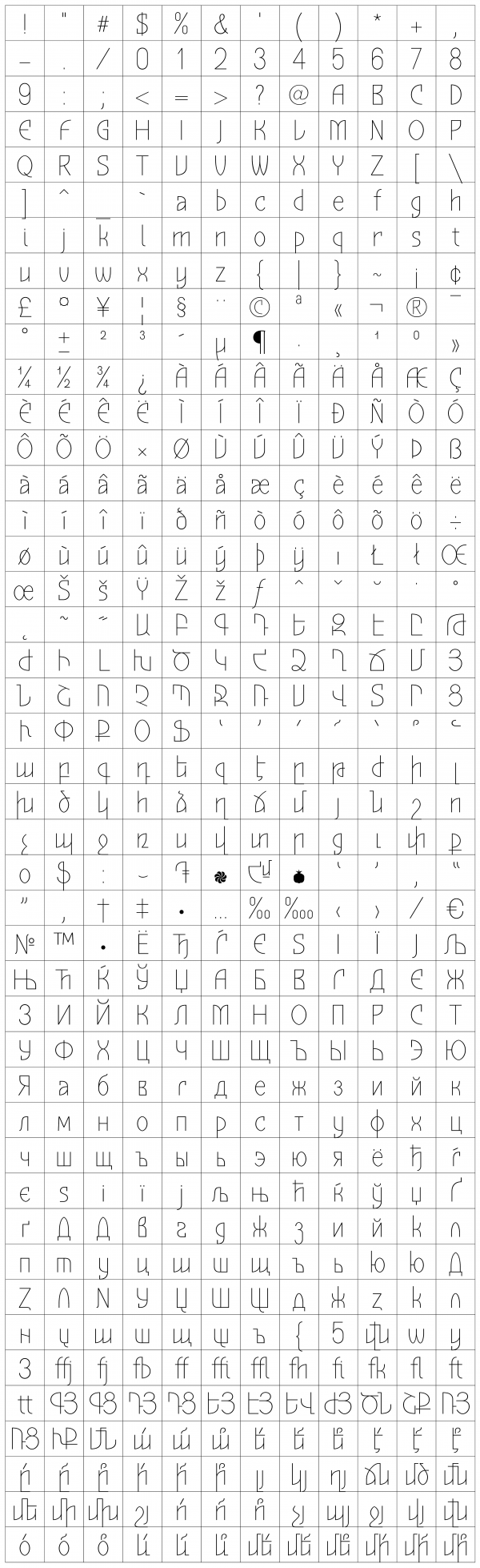
GHEA Shooter UltraLight
Design date: 2021
The font family includes Armenian, basic Latin, Latin 1 Supplement,
Latin Extended A and Cyrillic (Bulgarian and Ukrainian included) alphabet systems.
The font can be used as a Display, text and title font.